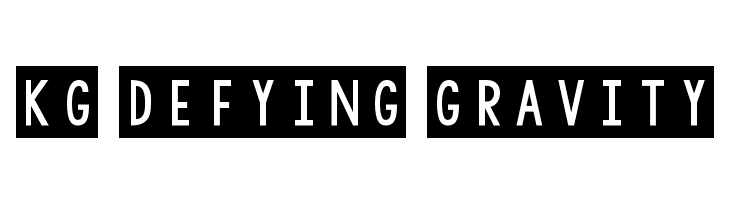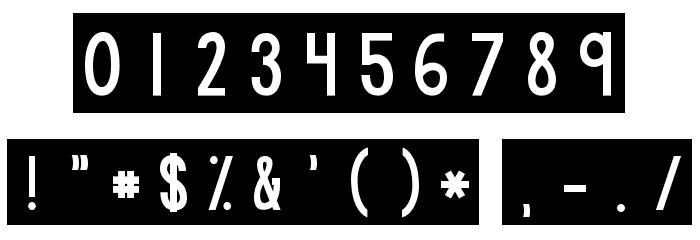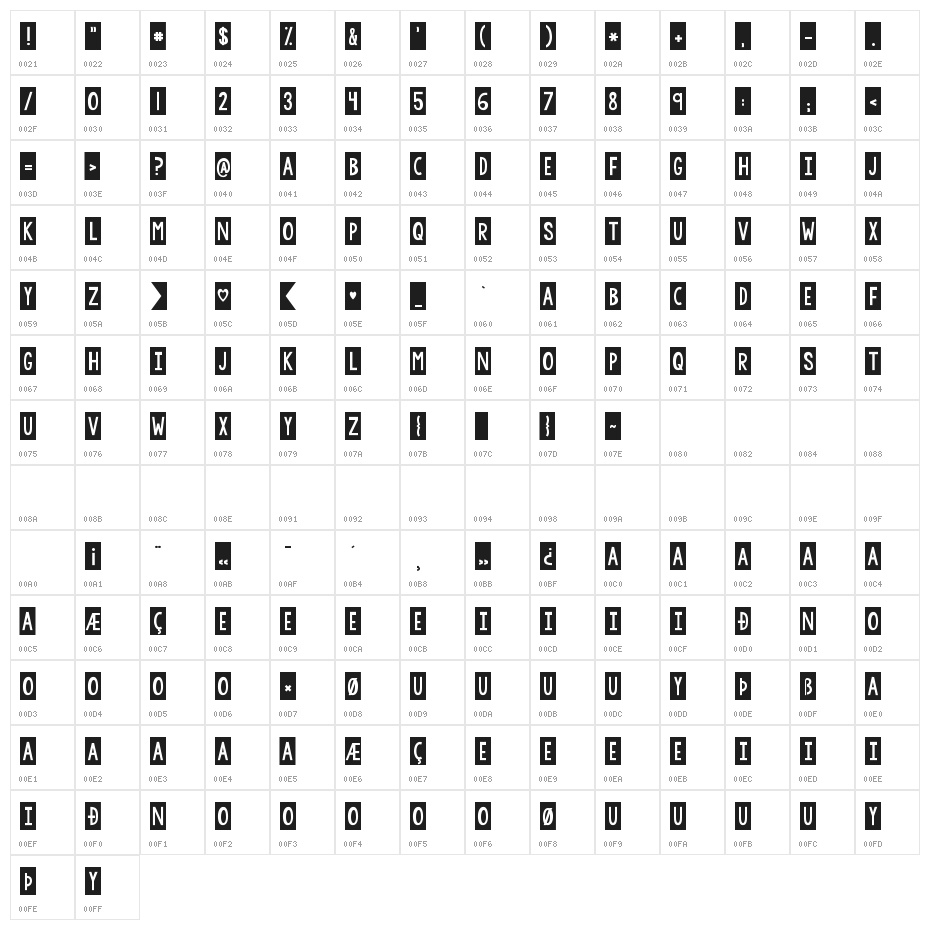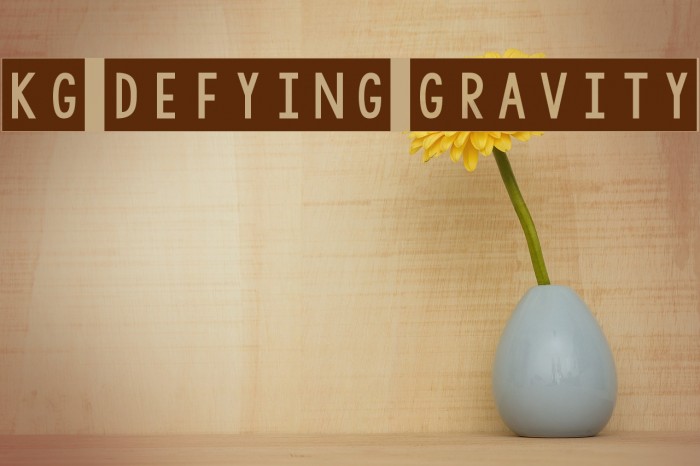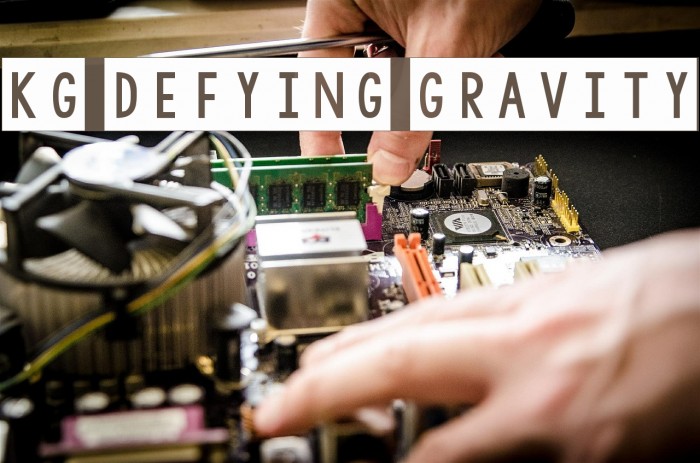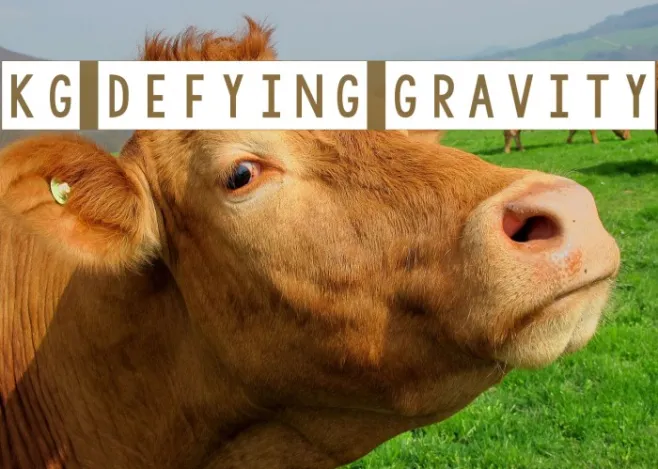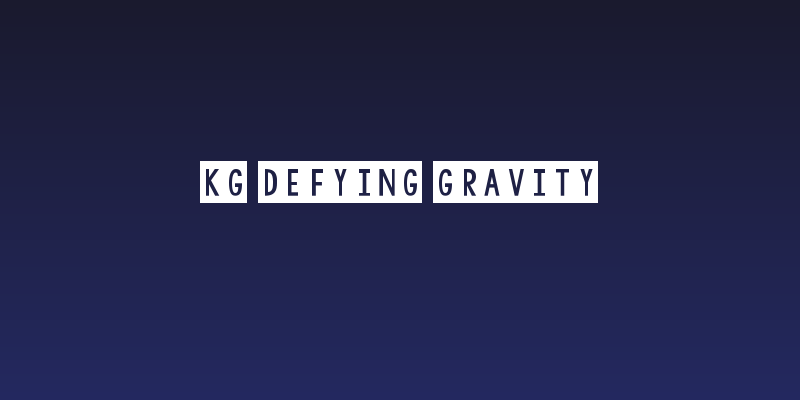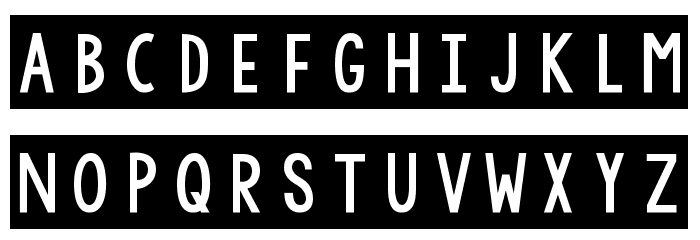
KG Defying Gravity Font
KG Defying Gravity Description
This font features a bold and modern design with clean, straight lines and a geometric structure. The characters are uniformly spaced, providing a balanced and harmonious appearance. The uppercase letters are tall and commanding, while the lowercase letters maintain a consistent height, enhancing readability. The numerals are clear and distinct, making them suitable for various applications. Special characters are included, adding versatility to the font's use. The overall style is contemporary, making it ideal for projects that require a strong visual impact.
| Proposed Projects | Ideal for branding, advertising, headlines, and digital media projects. |